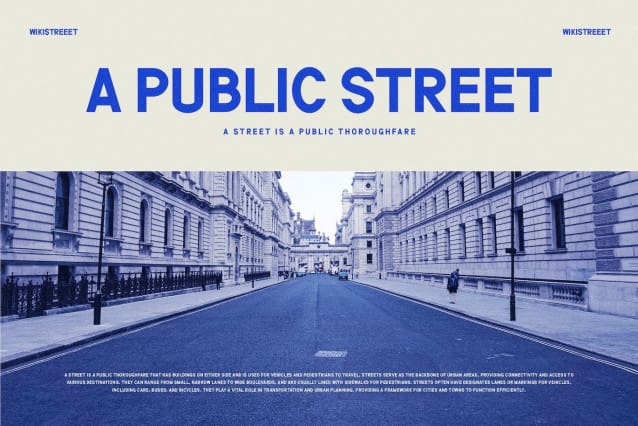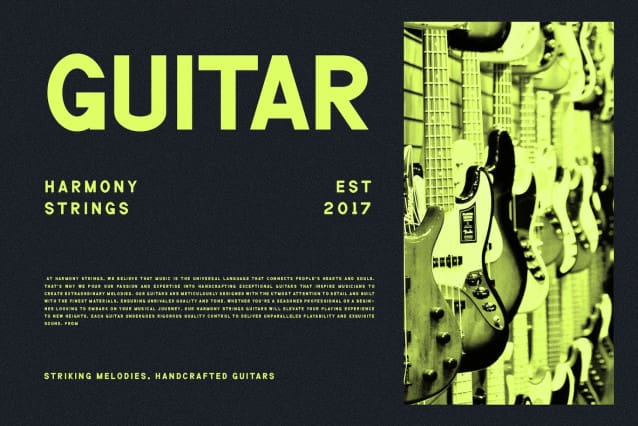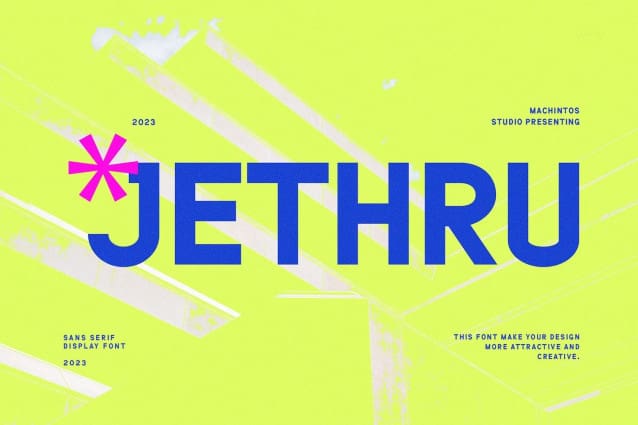
Jethru Font
Jethru Font, a modern sans serif font with an elegant style, perfect for brands, logos, invitations, magazines, product packaging, and more.